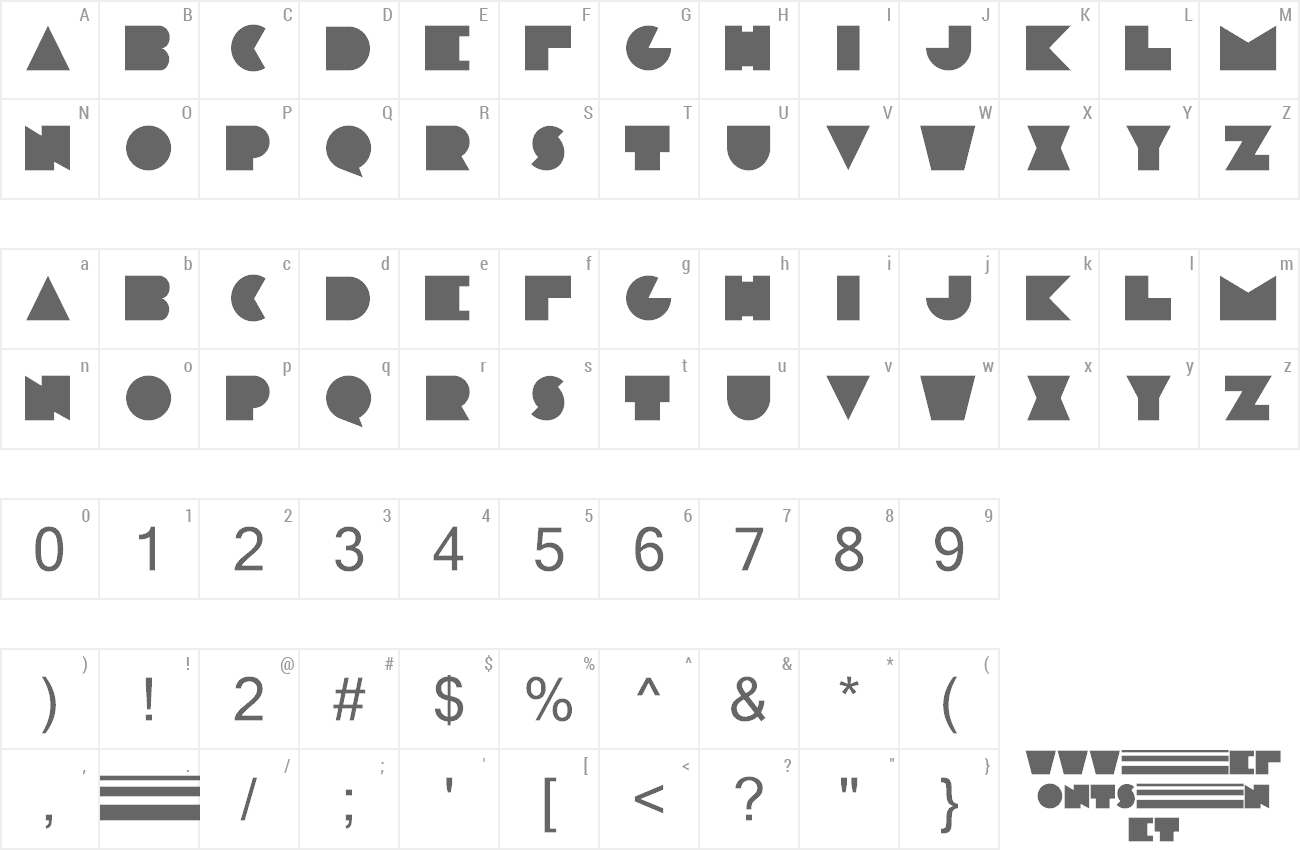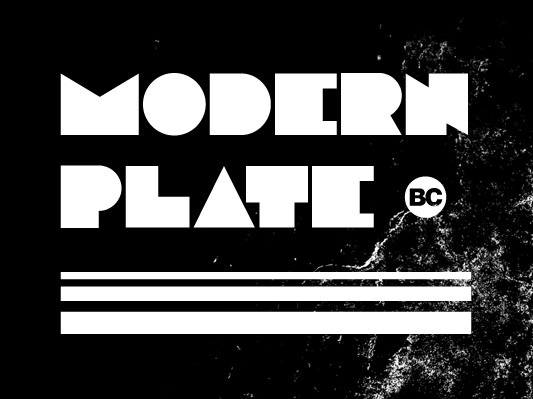
| Font name: | Modern Plate |
| Author: | BC |
| Note by BC | |
Nice retro looking font for all your hipster posters and fixie logos! This font is free for personal use, If you want to use it commercially, please send me an email bc(at)vnbc.fr |